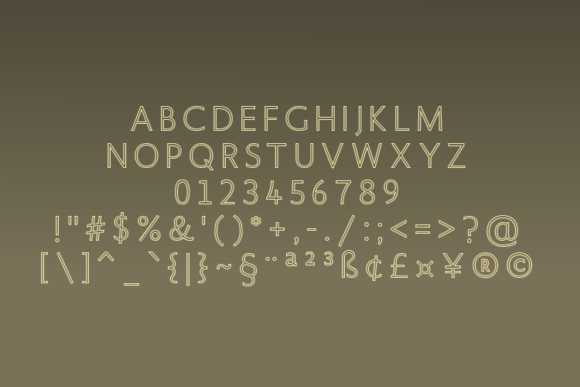
Unlocking the Power of Geometric Design: A Closer Look at Blankco Outline Regular Font
Have you ever found yourself staring at a blank page, trying to spark a new idea, only to be interrupted by a sudden burst of inspiration from a font that seems to leap off the screen? That’s exactly what happened to many designers when they first laid eyes on the Blankco Outline Regular Font. This fresh, geometric sans-serif font has been turning heads in the design community, and for good reason.
Blankco Outline Regular Font is a versatile and modern typeface that combines the best elements of neo-grotesk fonts from the 20th Century with a sleek, contemporary twist. With its big x-height value, sharp edges, and small stroke contrast, this font is perfect for designers looking to add a touch of sophistication and elegance to their work.
Whether you’re working on a magazine, poster, website, or brand identity, the Blankco Outline Regular Font is an invaluable tool in your design arsenal. Its extreme versatility and clean lines make it a go-to choice for designers of all levels, from beginners to seasoned pros.
Blankco Outline Regular Font Key Features
- Font Size: The font is available in a single weight, making it ideal for use in various design contexts, from body text to headings.
- Unique Characteristics: This font features a unique outline design, with clean lines and subtle details, making it perfect for creating a modern and sophisticated aesthetic.
- Legibility: Blankco Outline Regular Font is designed for optimal legibility, with clear letterforms and a balanced x-height, ensuring easy reading and comprehension.
Blankco Outline Regular Font Review
As a designer, I’ve had the chance to work with various fonts, and I must say that the Blankco Outline Regular Font has its unique charm. ✨ It’s perfect for creating eye-catching titles and headings due to its sleek and modern appearance. The font’s clean lines and minimal ornamentation make it ideal for use in branding materials, digital signage, and even signage.
Here are some of the things that I like about the Blankco Outline Regular Font:
- ✨ Highly legible, even at smaller font sizes
- ✨ Versatile and works well in both digital and print media
- ⚠️ Not ideal for body text, as it can be too thin and difficult to read at larger font sizes
- ⚠️ May not be suitable for use in situations where a more formal or traditional look is desired
Overall, I’d say that the Blankco Outline Regular Font is a solid choice for designers looking for a modern and sleek font. While it may have some limitations, it’s definitely worth considering for your next design project.
Blankco Outline Regular Font is a versatile font suitable for various design projects, including:
- Graphic design and branding materials.
- Infographics and data visualizations.
- Presentations and reports.
- Editorial and publishing content.
For optimal results, pair Blankco Outline Regular Font with a clean and simple design aesthetic.